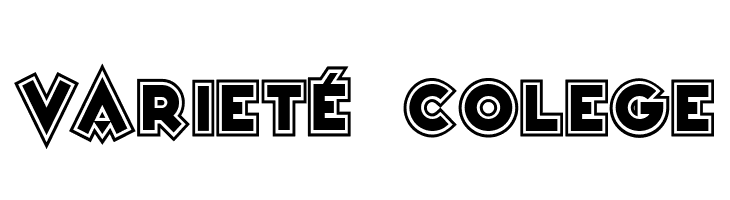
A bold, geometric font with strong outlines and a modern, dynamic style.
A bold, geometric font with a three-dimensional outlined style.
A bold, geometric font with sharp angles and a modern style.
A bold, geometric font with strong, impactful characters.
A bold, decorative font with geometric outlines and playful cutouts.
A bold, geometric font with a three-dimensional effect and sharp angles.
A bold, geometric font with a modern, angular design.
A bold, geometric font with angular shapes and creative cutouts.
A bold, geometric font with playful and dynamic shapes.
A bold, geometric font with sharp, angular lines.